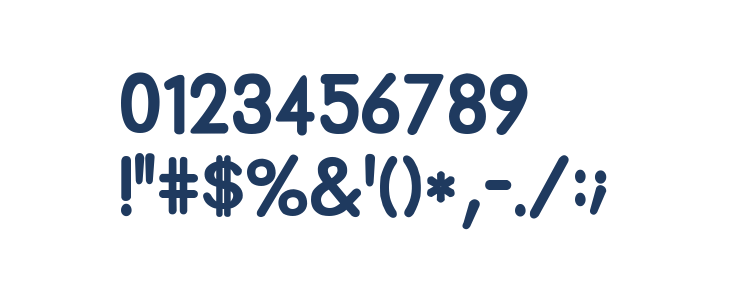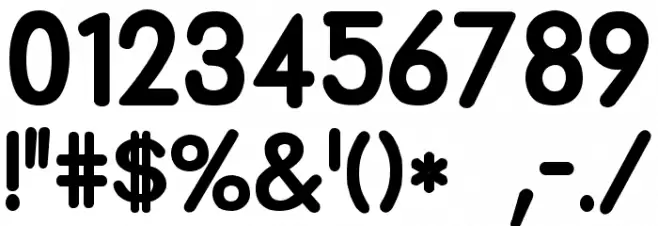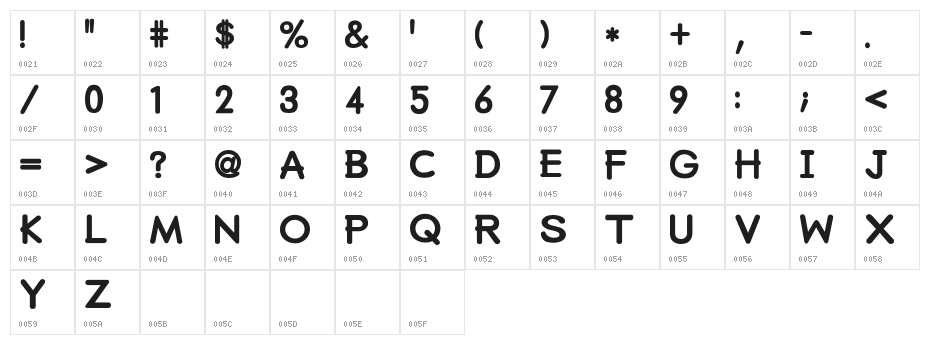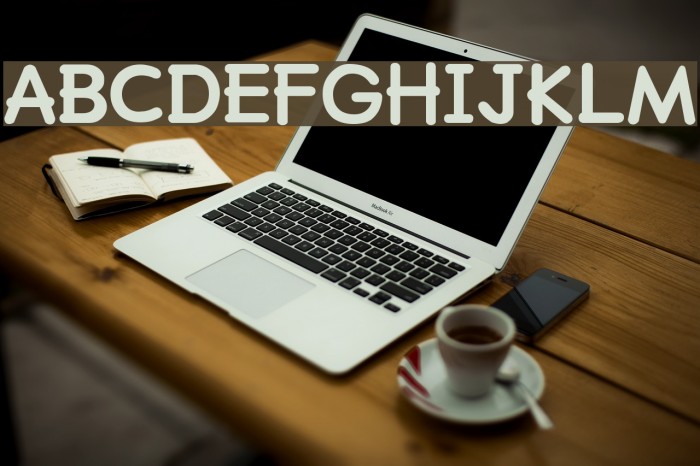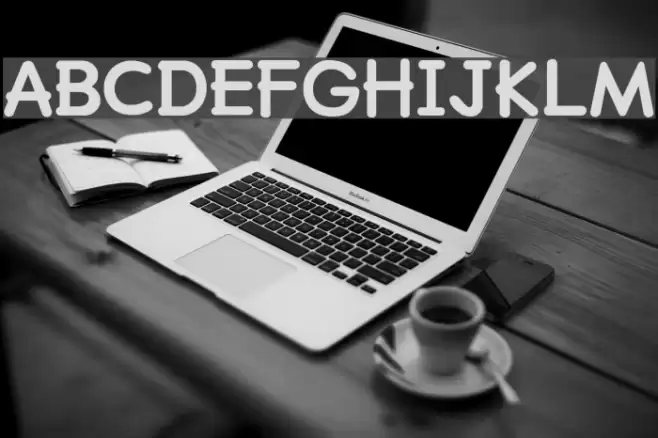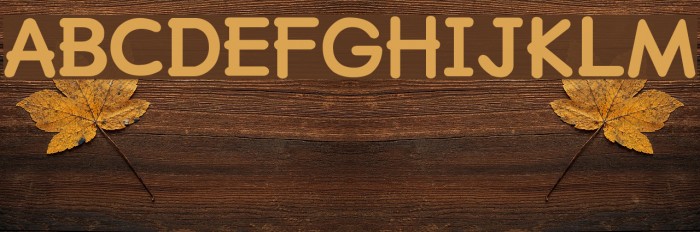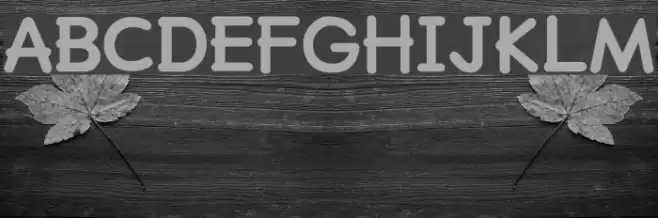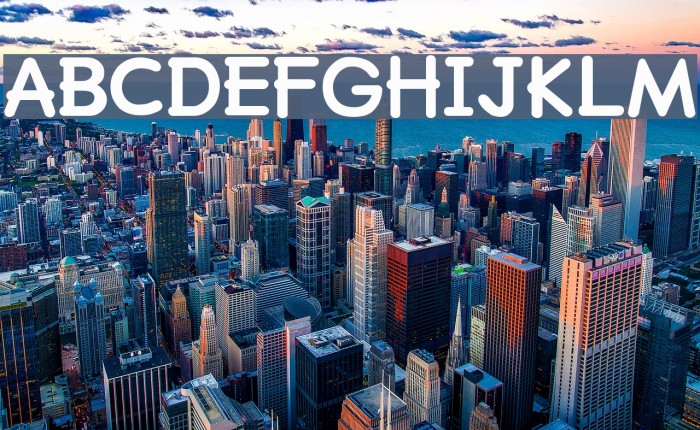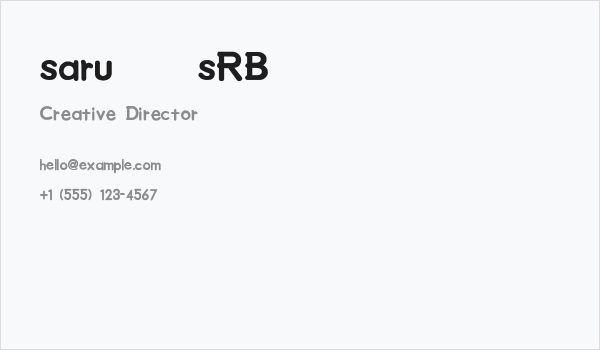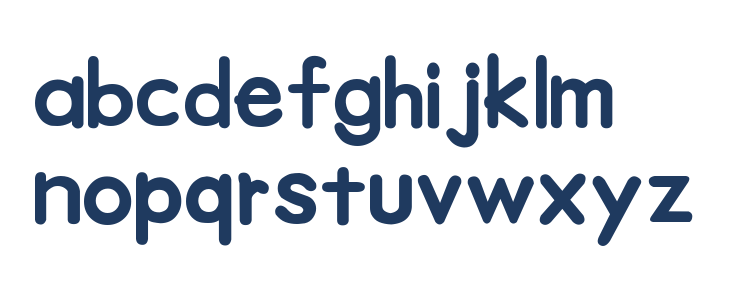
saru [sRB] Font
saru [sRB] Description
This font features a playful and rounded design, characterized by its bold and friendly appearance. The letters are uniformly thick, with smooth curves and a consistent stroke width that gives it a modern and approachable feel. The uppercase and lowercase letters maintain a cohesive style, while the numerals and special characters are designed to match the overall aesthetic. The font's rounded edges and lack of sharp angles contribute to its inviting and informal look, making it suitable for a variety of creative applications.
| Proposed Projects | Ideal for children's books, playful branding, casual invitations, and creative posters. |